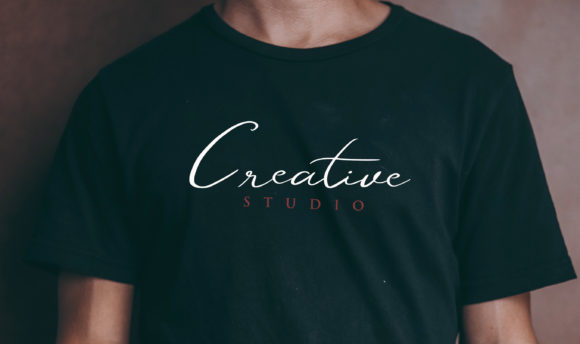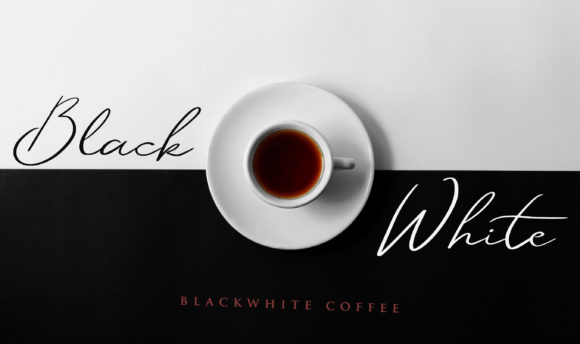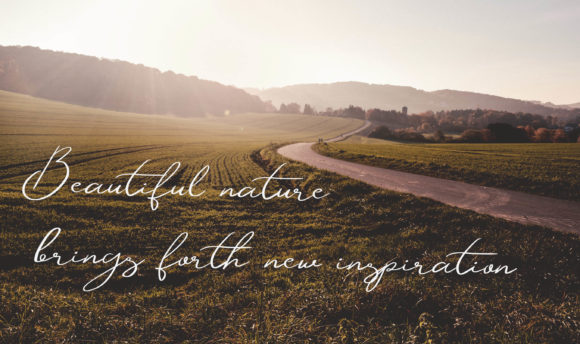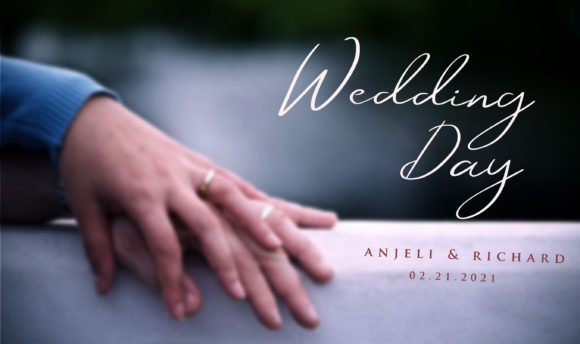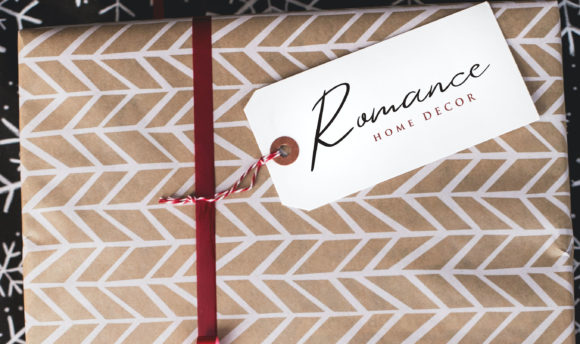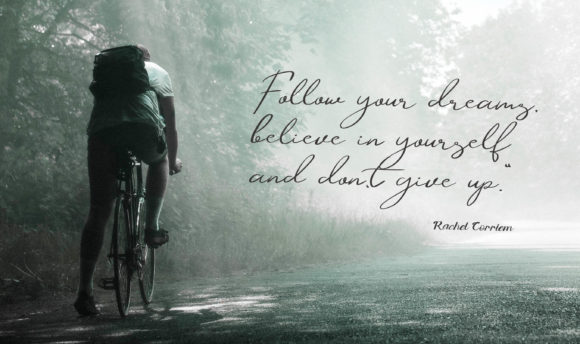
Introduction to Smartlove Font
Have you ever found yourself stuck in a creative rut, staring at a blank page with no inspiration in sight? That’s where the right design resource can make all the difference. For designers looking to add a touch of elegance to their projects, we’re excited to introduce you to the Smartlove Font.
With its beautiful and stylish handwritten feel, this cursive font is sure to elevate any design. Whether you’re working on a personal project or a commercial campaign, the Smartlove Font is a valuable asset to have in your toolkit. Its PUA encoding allows for seamless access to all of its glyphs and swashes, making it a high-quality addition to any design. And the best part? It’s available for free download, complete with a transparent background, making it easy to integrate into your creative project.
Key Features of Smartlove Font
- Unique characteristics: the Smartlove Font features a modern and elegant design, ideal for branding, logos, and titles.
Honest Review: Smartlove Font
I recently had the chance to try out the Smartlove Font, and I’m excited to share my thoughts. As a designer, I’m always on the lookout for high-quality design resources to elevate my creative projects.
- Unique and playful character set: The Smartlove Font has a charming personality that adds a touch of whimsy to any design.
- High-quality design: The font is crisp and clear, making it perfect for digital design projects.
- Limited font weights: The Smartlove Font only comes in a few font weights, which may limit its versatility.
- No italics or bold: The font doesn’t have italics or bold versions, which may make it less suitable for certain design projects.
Overall, I’m impressed with the Smartlove Font. While it may have some limitations, its unique character set and high-quality design make it a valuable addition to any designer’s toolkit. I’d definitely recommend it to anyone looking for a fun and creative font for their next project.
Common Use Cases for the Smartlove Font
The Smartlove Font is perfect for any creative project that requires a high-quality design resource. Here are a few common use cases:
- Website design and development
- Print design and advertising